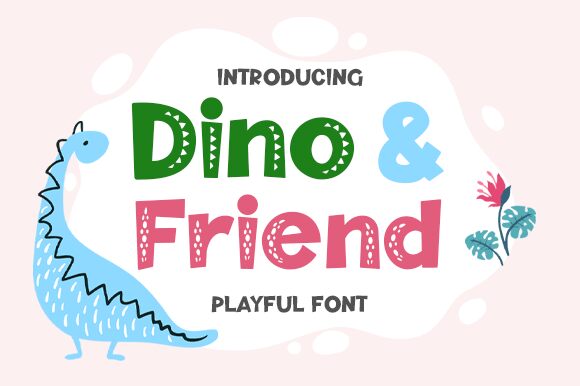
Dino And Friend Texture 1 is a bold, decorative cartoon font family created by Aldi Raya Pradipta. Perfect for adding a playful element to projects, this font is ideal for logos, titles and posters.